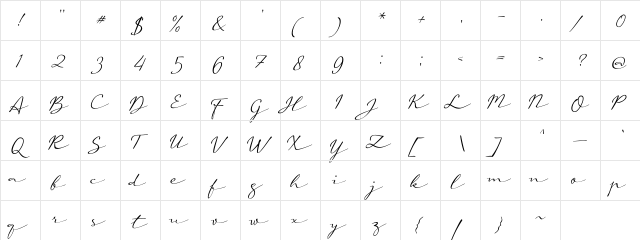
a Auto Signature Regular
| Foundry | wep |
| Designer | Wahyu Eka Prasetya |
Design Context for a Auto Signature Typeface
a Auto Signature is a composed and adaptable typeface that performs quietly and consistently across a wide range of design contexts.